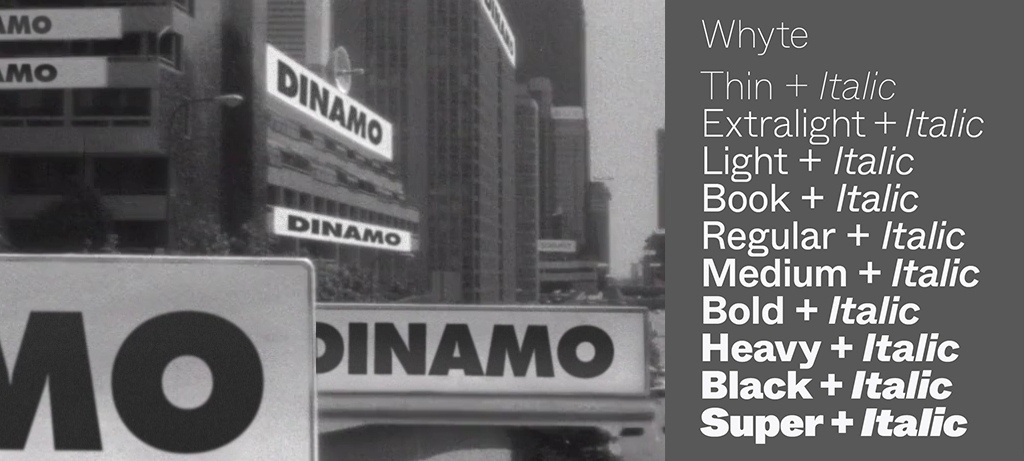
Whyte Font
Whyte Font excels in minimalist design studios, contemporary art galleries, modern tech company branding, clean lifestyle magazines, architectural firm presentations, Scandinavian-inspired businesses, premium white goods packaging, sophisticated wellness centers, pure aesthetic campaigns, and refined corporate communications. This pristine typeface brings clean minimalism and pure sophistication to any modern design project.
Whyte Font is exciting because it embodies the pure essence of minimalist design philosophy, featuring clean, unadorned letterforms that celebrate the beauty of simplicity and the powerful impact of thoughtful restraint. Its pristine character instantly conveys clarity, honesty, and the sophisticated confidence that comes from understanding that true elegance lies in perfect simplicity and refined reduction.
Whyte Font family includes comprehensive weight range from Thin to Black with matching italics, plus condensed and extended variants that maintain the clean aesthetic while offering flexibility for various minimalist applications and space-conscious design requirements that demand both visual impact and typographic purity.
Minimalist design specialists appreciate Whyte Font for its exceptional clarity in contemporary communications and its ability to convey sophisticated simplicity through systematically refined letterforms. The font's clean construction and optimized proportions ensure maximum impact with minimal visual noise, reflecting the same design philosophy that defines successful minimalist architecture, product design, and contemporary lifestyle aesthetics.
The design philosophy behind Whyte Font celebrates the beauty of reduction and the powerful communication that emerges when unnecessary elements are stripped away to reveal pure, essential form, making it particularly effective for technology brands, architectural firms, and lifestyle companies that value clarity, honesty, and sophisticated simplicity. Design teams working on minimalist projects find this font essential.
Whether used for contemporary architecture firms, minimalist lifestyle brands, or clean technology interfaces, Whyte Font delivers the perfect synthesis of typographic purity and modern sophistication. Its clean appeal and minimalist authenticity make it an indispensable choice for brands that celebrate the beauty of simplicity, honest communication, and the refined elegance of thoughtful design restraint.